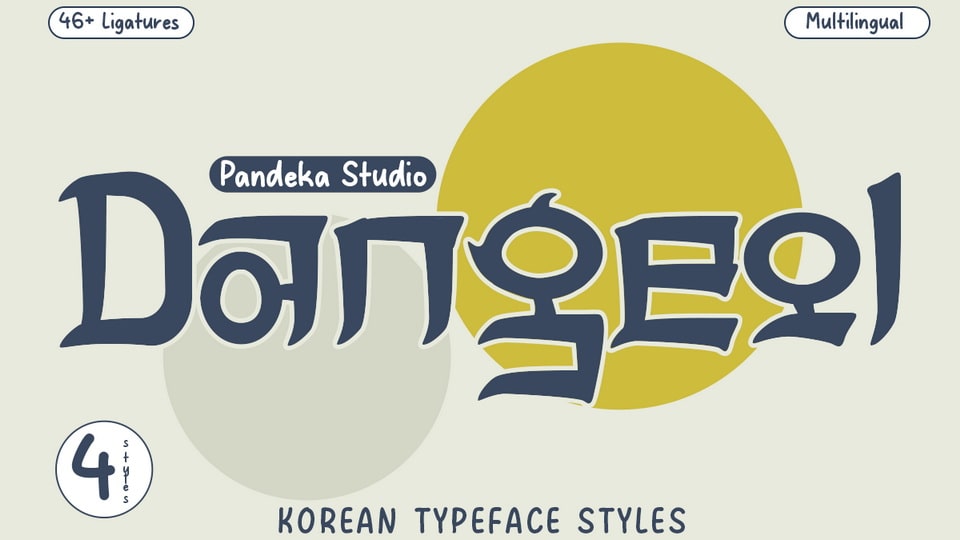
Download Dangeol font, a versatile Korean-style typeface with 4 unique styles. Perfect for Korean-inspired designs, it blends traditional and modern aesthetics.